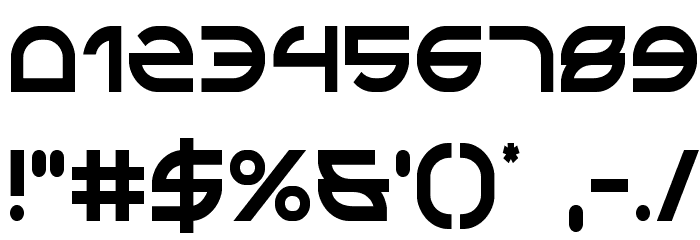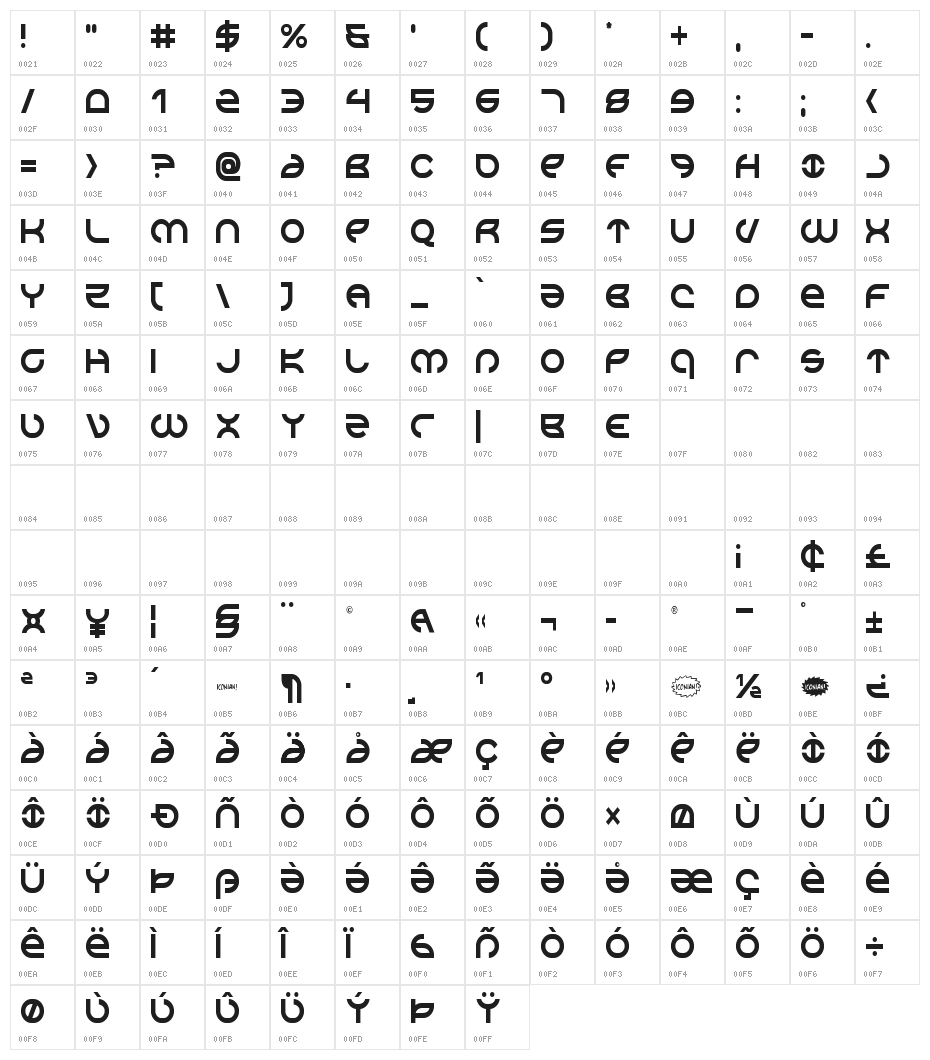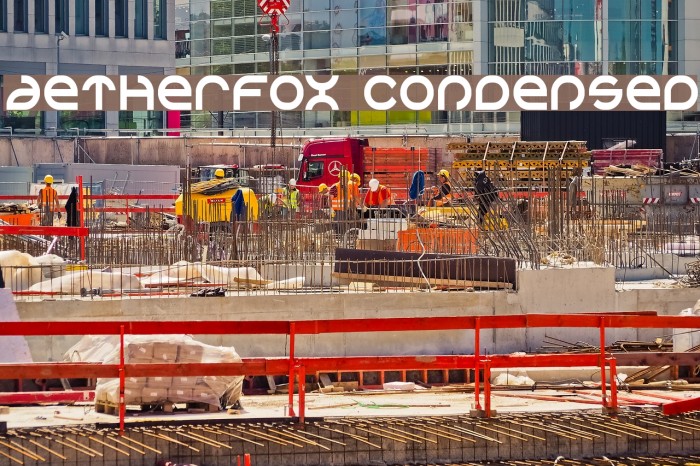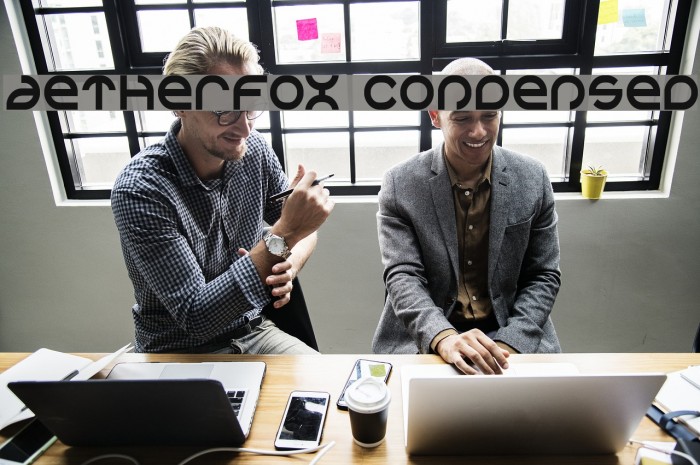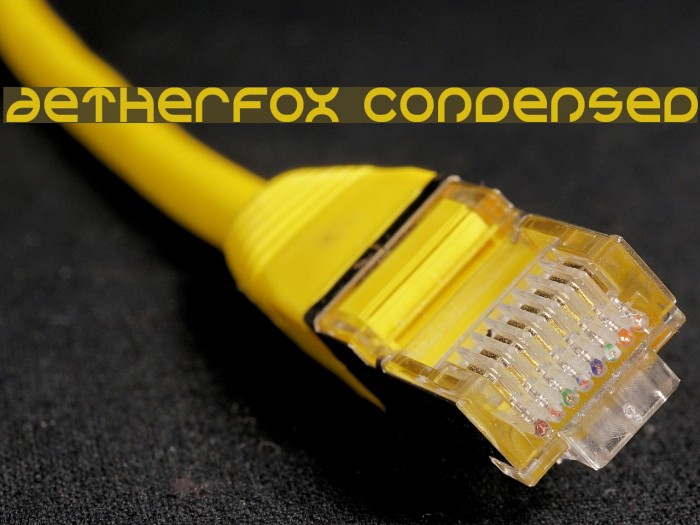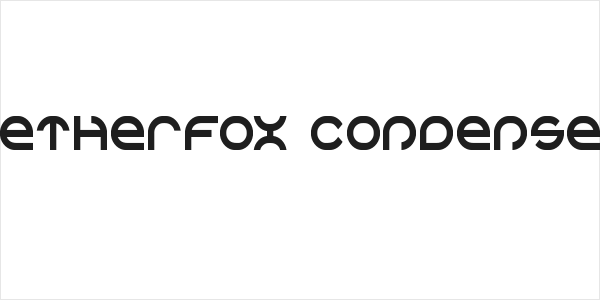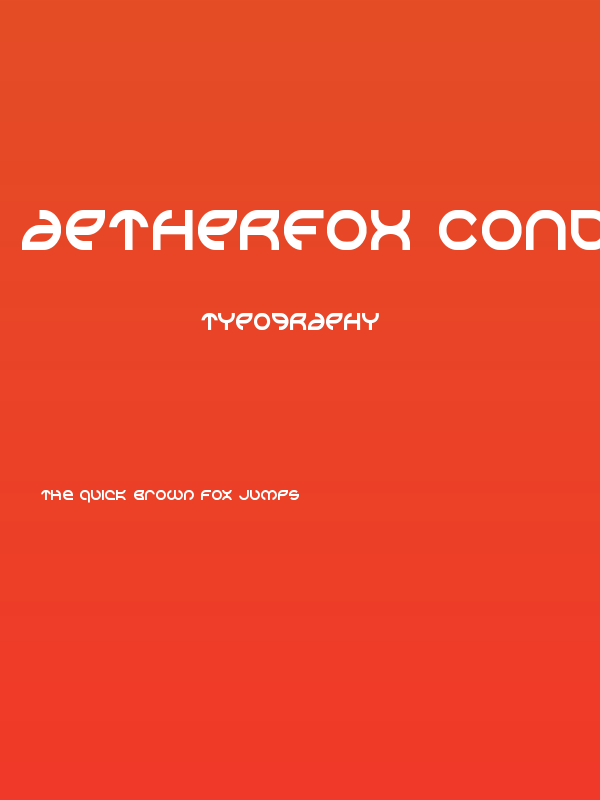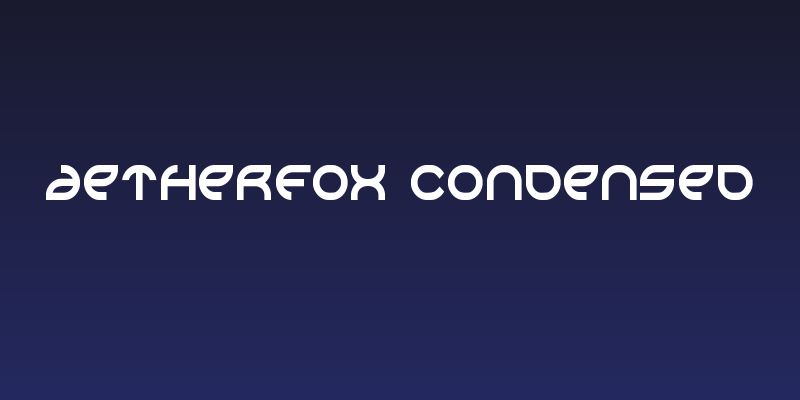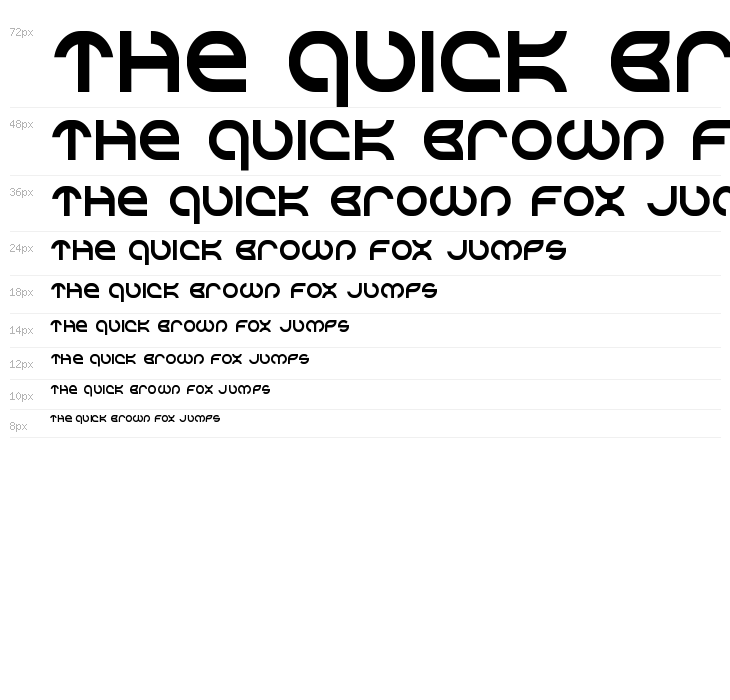
Aetherfox Condensed Font
Aetherfox Condensed Description
This font exhibits a futuristic and geometric design with a condensed structure. The characters are crafted with a unique blend of curves and straight lines, giving them a distinct, modern appearance. The uppercase and lowercase letters maintain a consistent style, with some characters featuring partial closures or open spaces, adding to the font's avant-garde aesthetic. The numerals and special characters follow the same design principles, ensuring uniformity across all glyphs. This font's bold and striking look makes it ideal for projects that require a contemporary and innovative touch.
| Proposed Projects | Ideal for tech branding, sci-fi posters, modern art projects, and innovative product packaging. |